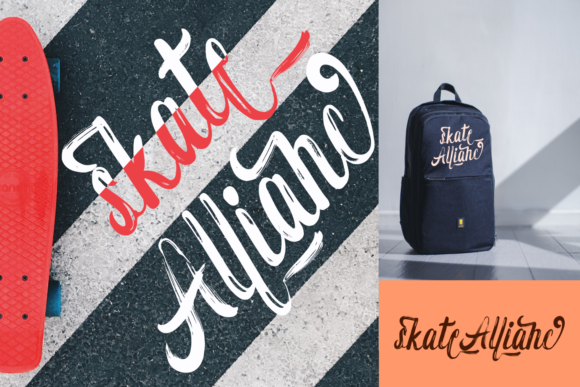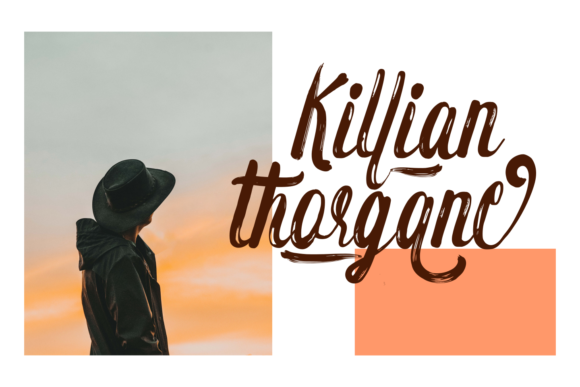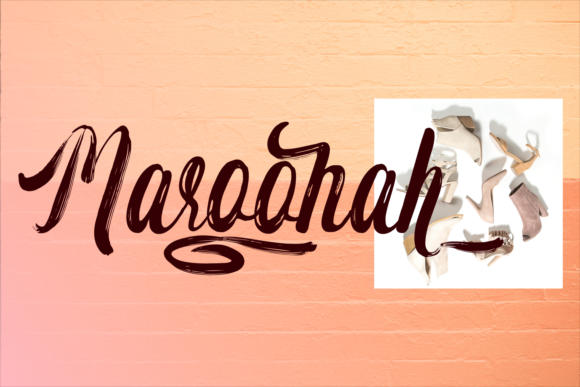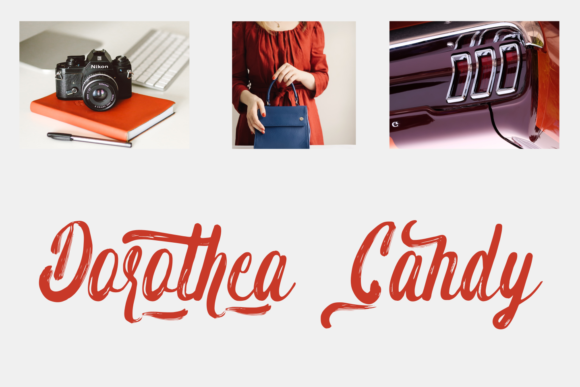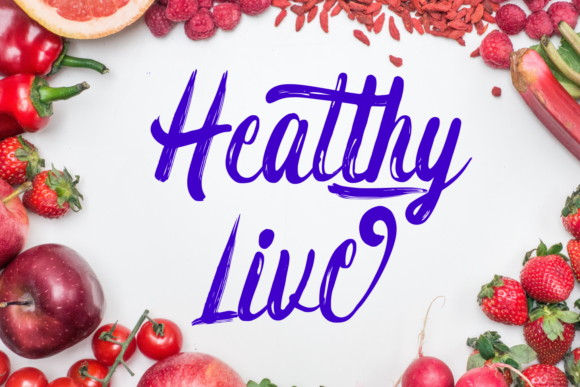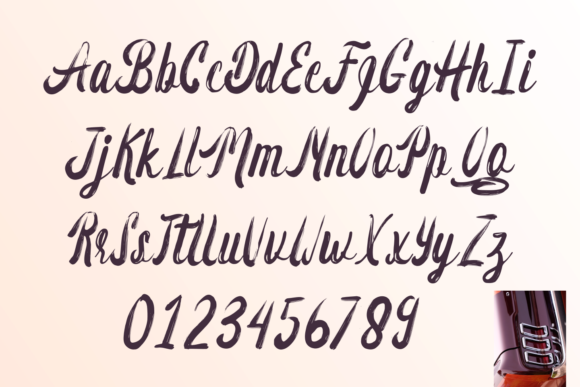
Introducing Carmentz Font: A Magical Script Font with Timeless Elegance
In the world of typography, fonts play a crucial role in conveying the tone and personality of a design. For designers and crafters, finding the perfect font can be a daunting task, especially when looking for something that exudes elegance, sophistication, and a touch of magic. This is where Carmentz Font comes in – a beautiful, handcrafted script font that combines timeless elegance with authentic calligraphy.
The Story Behind Carmentz Font
Carmentz Font is a carefully crafted script font that boasts an incredibly classic style while maintaining a friendly feel. Its creator aimed to design a font that would not only capture the essence of traditional calligraphy but also appeal to modern design sensibilities. The result is a font that is both sophisticated and approachable, making it perfect for a wide range of design projects.
Key Features of Carmentz Font
- Timeless Elegance: Carmentz Font features a classic, elegant design that evokes a sense of sophistication and refinement.
- Authentic Calligraphy: The font’s authentic calligraphy style gives it a personal, handcrafted feel that sets it apart from more generic fonts.
- Friendly Feel: Despite its classic style, Carmentz Font has a friendly, approachable feel that makes it perfect for designs that require a more approachable tone.
- Versatility: Carmentz Font is highly versatile and can be used for a wide range of design projects, from wedding invitations and branding materials to packaging and digital media.
Why Choose Carmentz Font?
For designers and crafters looking for a font that can elevate their designs, Carmentz Font is an excellent choice. Here are just a few reasons why:
- Unique Style: Carmentz Font’s unique blend of classic elegance and friendly feel sets it apart from more generic fonts.
- Ease of Use: The font is incredibly easy to use, even for those with limited design experience.
- High-Quality Design: Carmentz Font is designed to the highest standards, ensuring that your designs look professional and polished.
- Support for Various Design Projects: Whether you’re working on a wedding invitation, branding materials, or digital media, Carmentz Font is the perfect choice.
How to Use Carmentz Font in Your Designs
Using Carmentz Font in your designs is incredibly easy. Here are a few tips to get you started:
- Pair it with Other Fonts: Carmentz Font pairs beautifully with other fonts, especially sans-serif fonts like Arial or Helvetica.
- Experiment with Sizes and Colors: Don’t be afraid to experiment with different sizes and colors to find the perfect combination for your design.
- Use it for Headings and Titles: Carmentz Font is perfect for headings and titles, where its elegant style can really shine.
- Add a Personal Touch: Use Carmentz Font to add a personal touch to your designs, whether it’s a wedding invitation or a branding material.
In conclusion, Carmentz Font is a magical script font that offers a perfect blend of timeless elegance and authentic calligraphy. Its classic style, friendly feel, and versatility make it an excellent choice for designers and crafters looking to elevate their designs. Whether you’re working on a wedding invitation, branding materials, or digital media, Carmentz Font is sure to impress. So why not give it a try and see the magic for yourself?